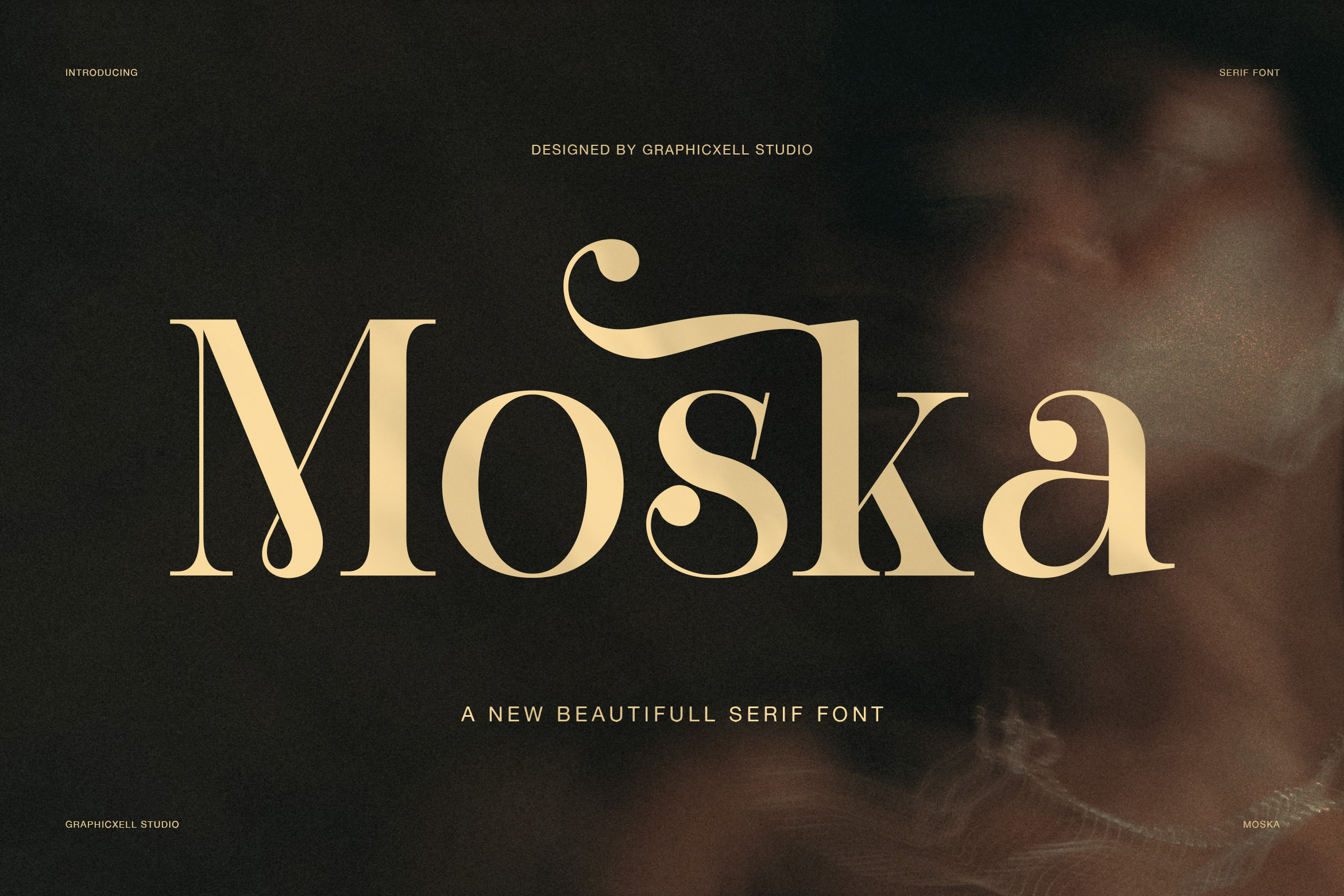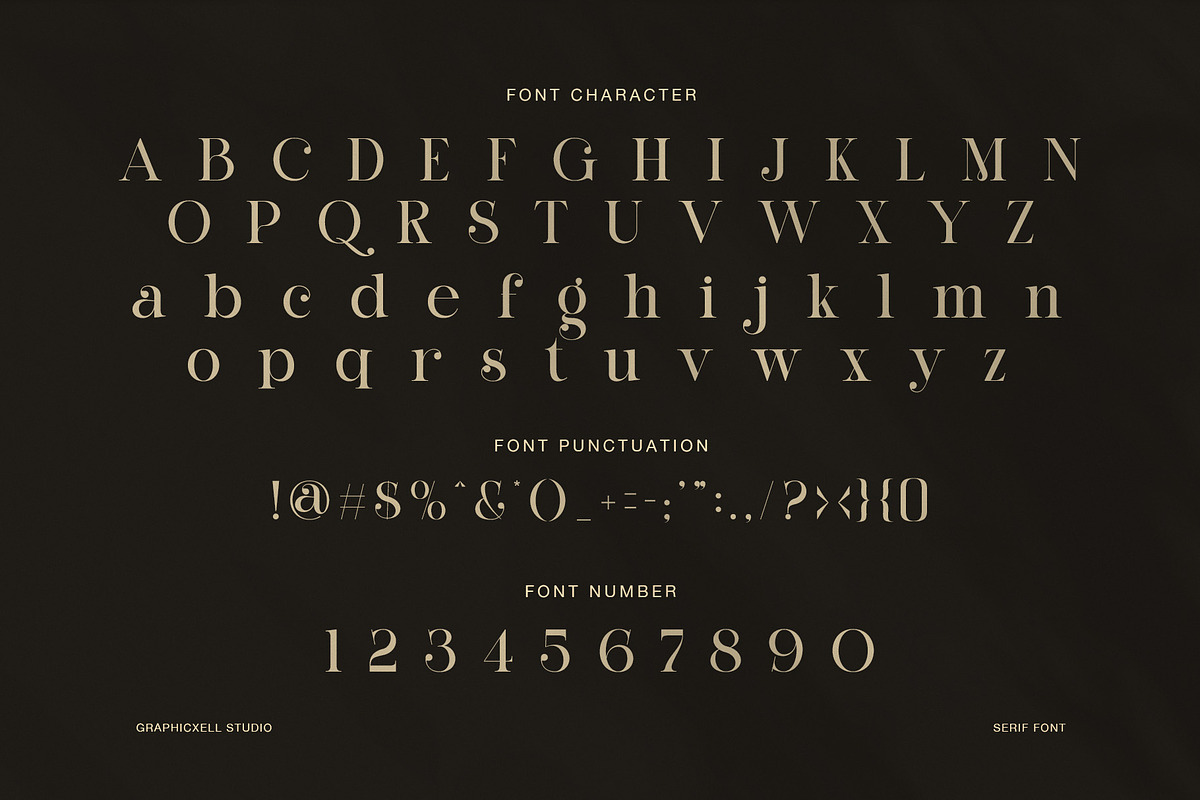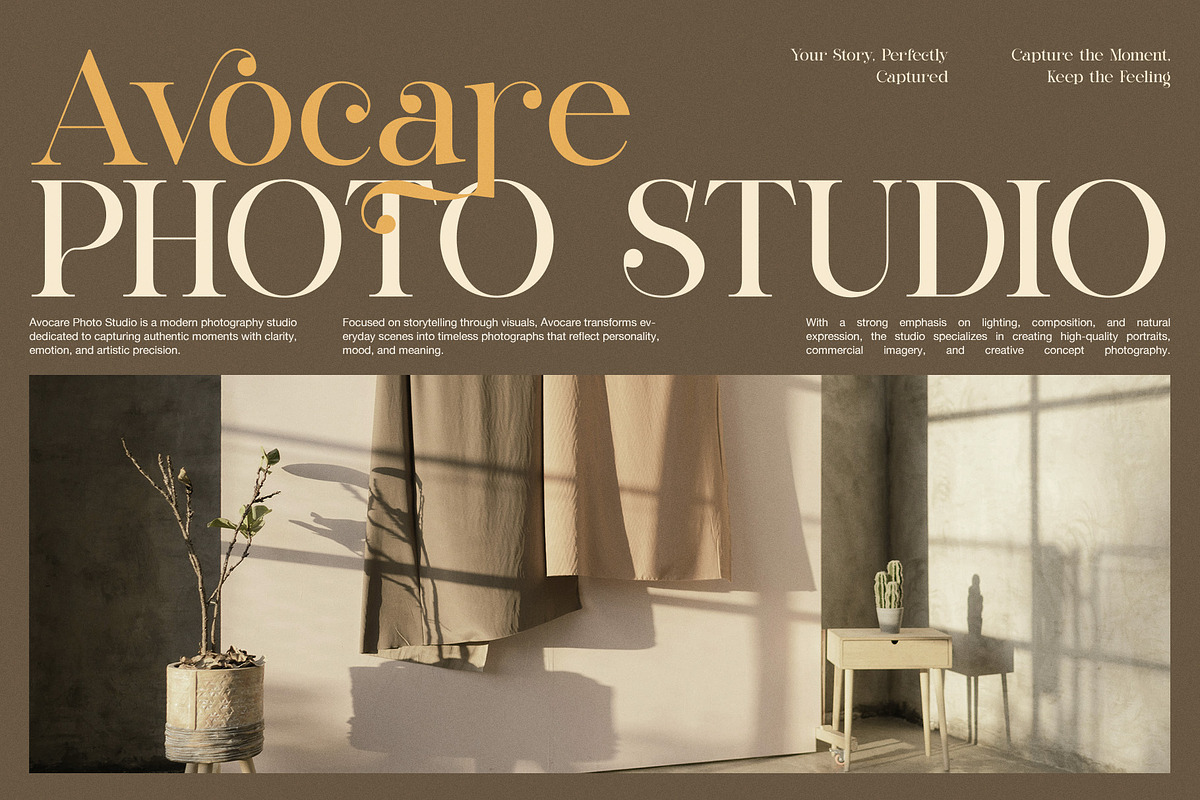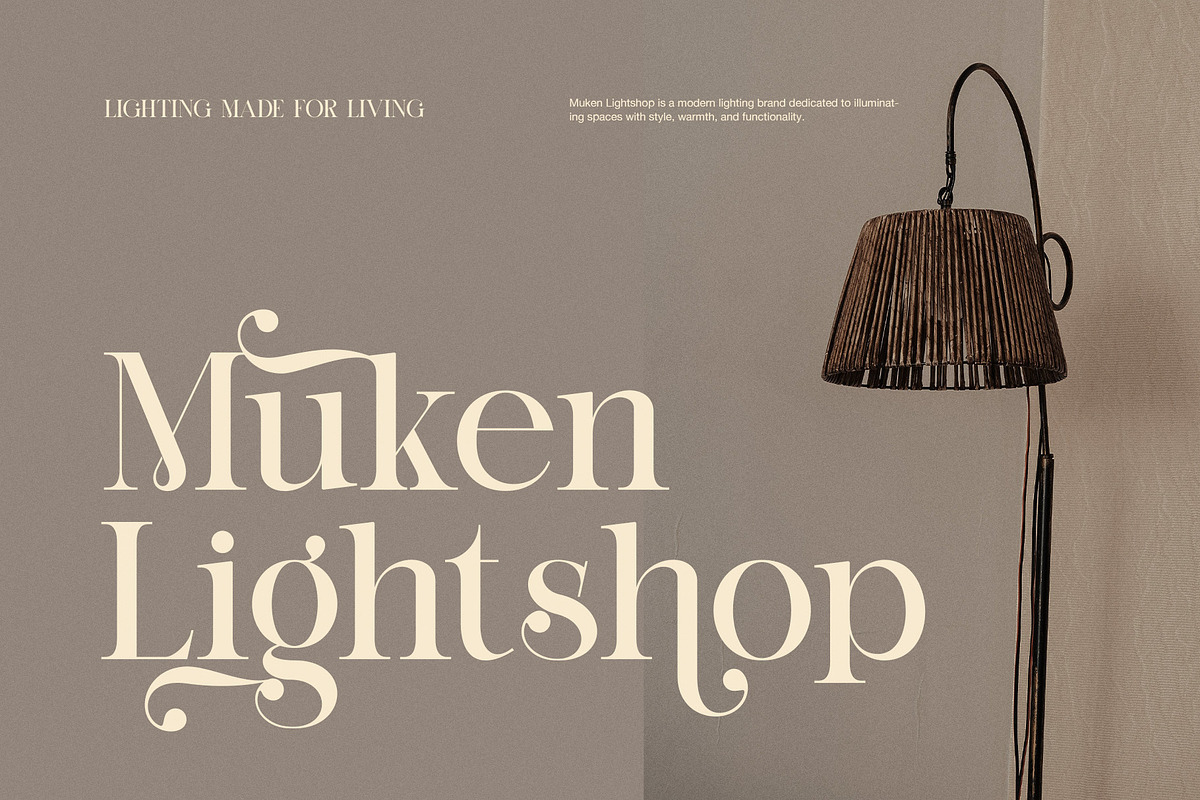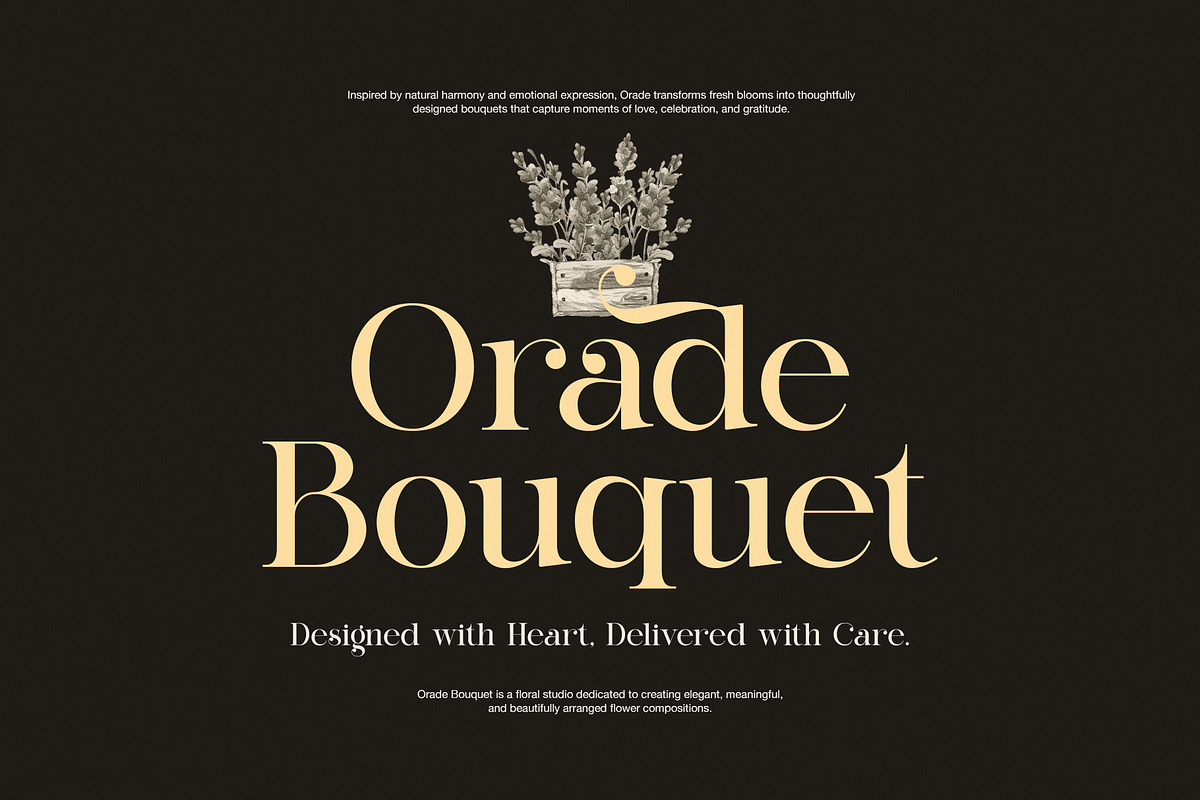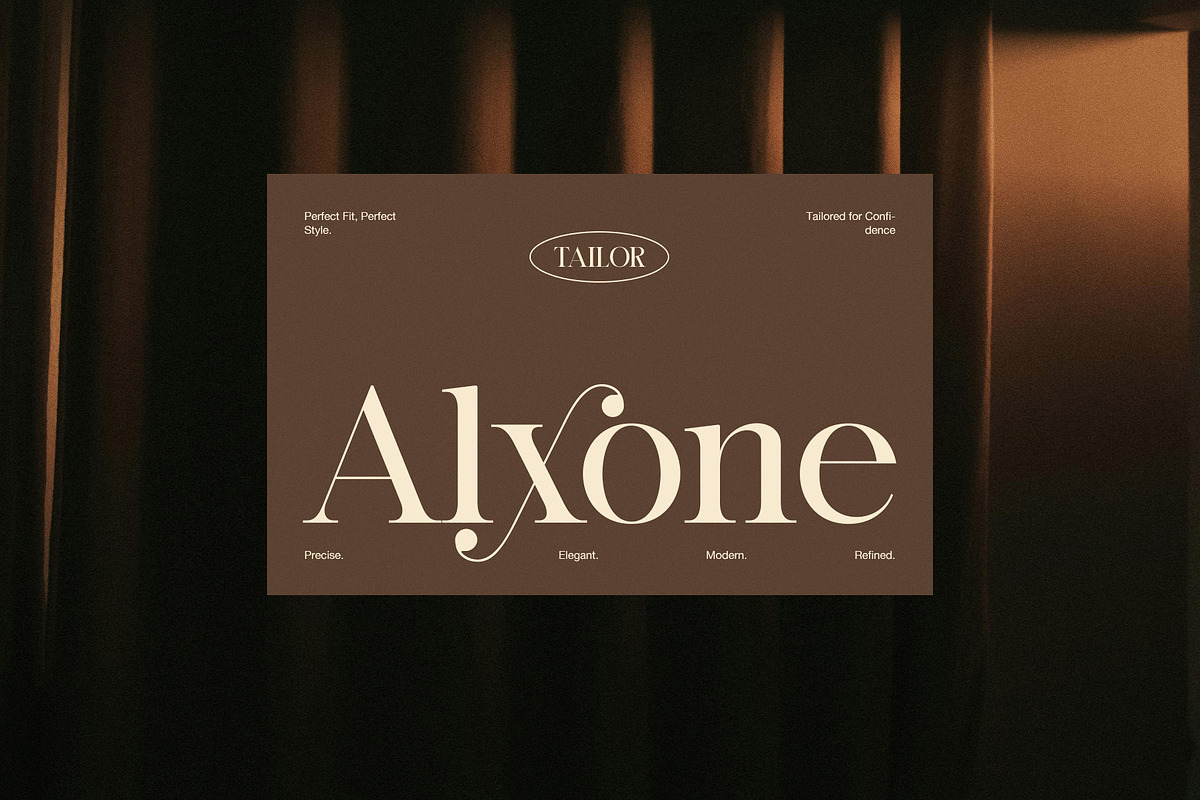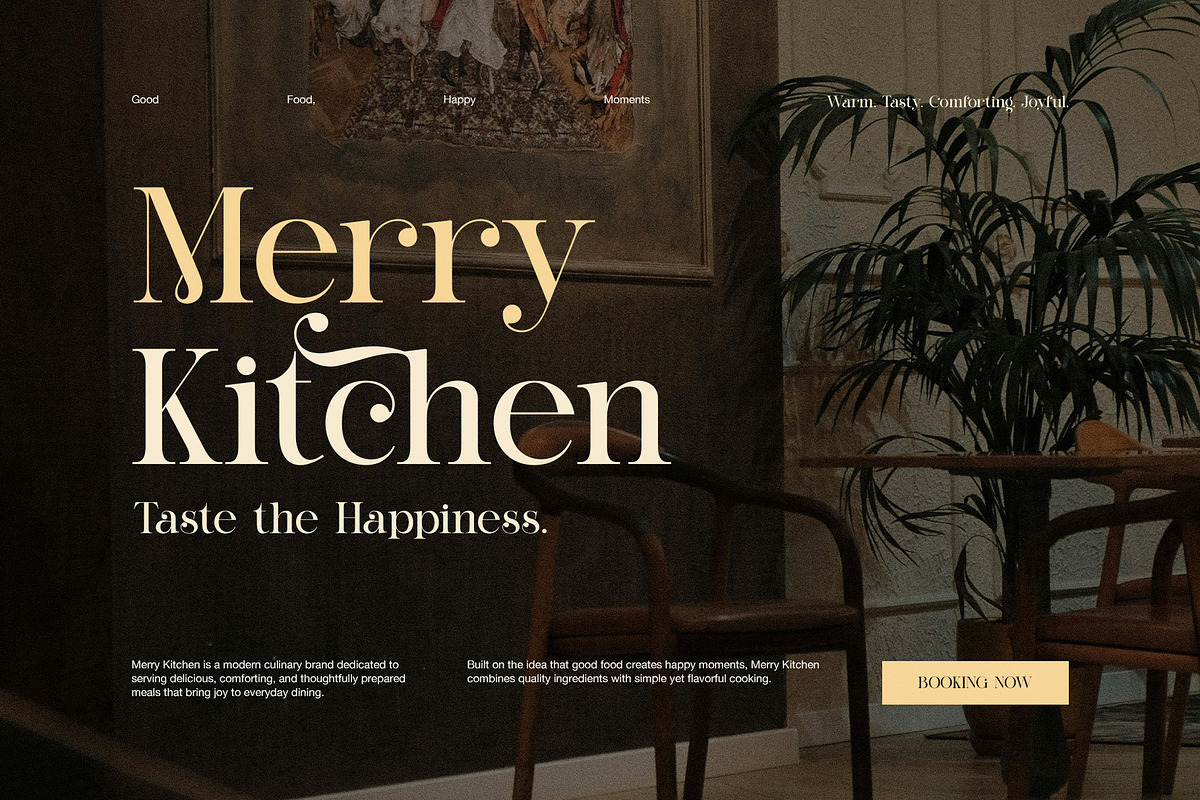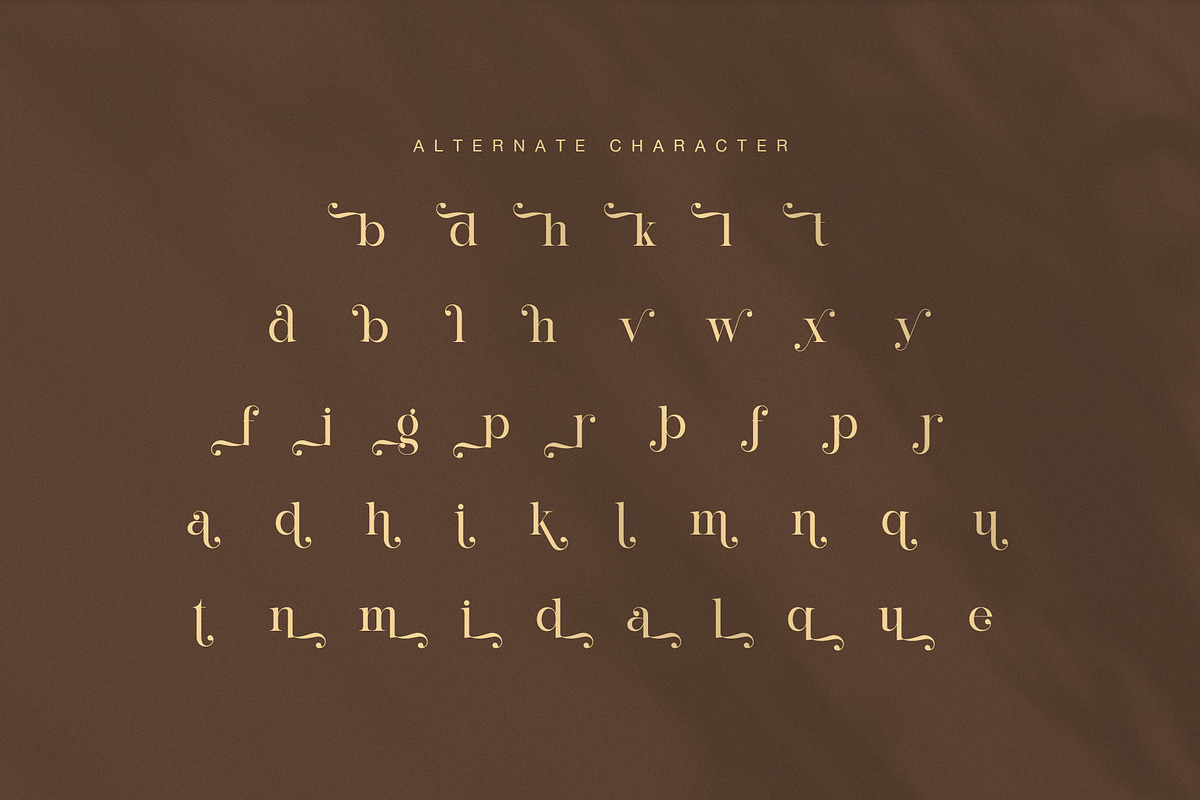
Moska Elegant Serif Font
Moska Elegant Serif Font is a refined display serif with a graceful and artistic voice. It blends classic beauty with modern control. As a result, it feels stylish, soft, and highly memorable in premium design work. The letterforms look polished at first glance, yet they also carry a rich personality that helps every word stand out.
The main shape of Moska shows high contrast strokes, fine hairlines, and elegant serif details. Moreover, several letters include curved terminals, soft ball ends, and flowing alternate forms. These details give the font a romantic and luxury mood. At the same time, the structure stays clean, so it still feels neat in branding and editorial layouts.
Moska shines in large display use. In the preview examples, it looks striking on fashion-style posters, floral branding, restaurant layouts, photo studio headlines, lighting ads, and tailored brand cards. Because of that flexibility, this font fits many visual themes. It can feel warm and poetic in one layout. However, it can also feel modern and upscale in another.
Another strong point is its alternate character set. The alternate letters add movement, charm, and a more custom look. Therefore, designers can build logos, wordmarks, and headlines that feel more exclusive. The punctuation and number set also support polished presentation work, which is useful for packaging, invitations, social media, and brand identity systems.
Best uses for Moska
luxury branding
logo design
editorial headlines
wedding stationery
fashion campaigns
beauty packaging
restaurant branding
photography branding
product labels
social media graphics
Why designers will love it
Moska Elegant Serif Font is made for display work that needs beauty and presence. In addition, it helps short text feel more expensive and expressive. While many serif fonts look formal, Moska feels more fluid and distinctive. Because of its stylish alternates, it can turn simple words into elegant visual statements.
If you need a serif font for branding, headline design, or premium layouts, Moska is a strong choice. It feels feminine, classy, and artistic. Still, it remains usable and clear. So, if your project needs an elegant serif font with alternate characters, luxury style, and strong display appeal, Moska can give your design a timeless and elevated finish.